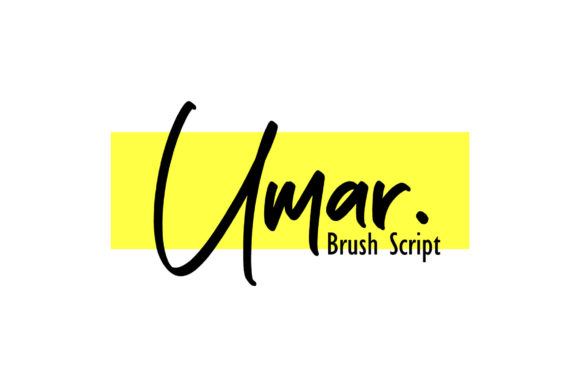
HomeScript FontsUmar Font Script Fonts Umar Font FacebookXPinterestWhatsApp Umar Font Poster 2 About Umar Font Umar is a bold and playful script font with rich lettering. Use it to add an authentic feel to any design project! DOWNLOAD ON CREATIVE FABRICAThis font is sold and delivered by Creative Fabrica. Font Canyon may earn a commission if you buy through this link. People also explored Calderdale Font Mellany Font Bella Donna / Elegant Signature Gerkco Extra Black Font Boutique Qiara Font Rossalyta Nataly Font Starluxe Font Mariana Font Enchantee Font 350 0 TagsUmar Font Previous articleHi Morgane FontNext articleAntalya Font LEAVE A REPLY Cancel reply Comment: Please enter your comment! Name:* Please enter your name here Email:* You have entered an incorrect email address! Please enter your email address here Website: Save my name, email, and website in this browser for the next time I comment. Personal Use Free Cosmos Personal Use Free Read more about this font Equestrain Personal Use Free Read more about this font Hearted Personal Use Free Read more about this font Cheese Matcha Font Personal Use Free Read more about this font BLOG To increase your work productivity, choose the most readable fonts. In today's fast-paced work environment, where digital communication and information consumption are integral to our daily routines, the choice of fonts can significantly impact... The 10 Best Handwriting Fonts to Add Personality to Your Designs Where to Buy American Fonts Online in 2024 Free vs Paid Fonts: Why Investing in Premium Fonts Is Worth It